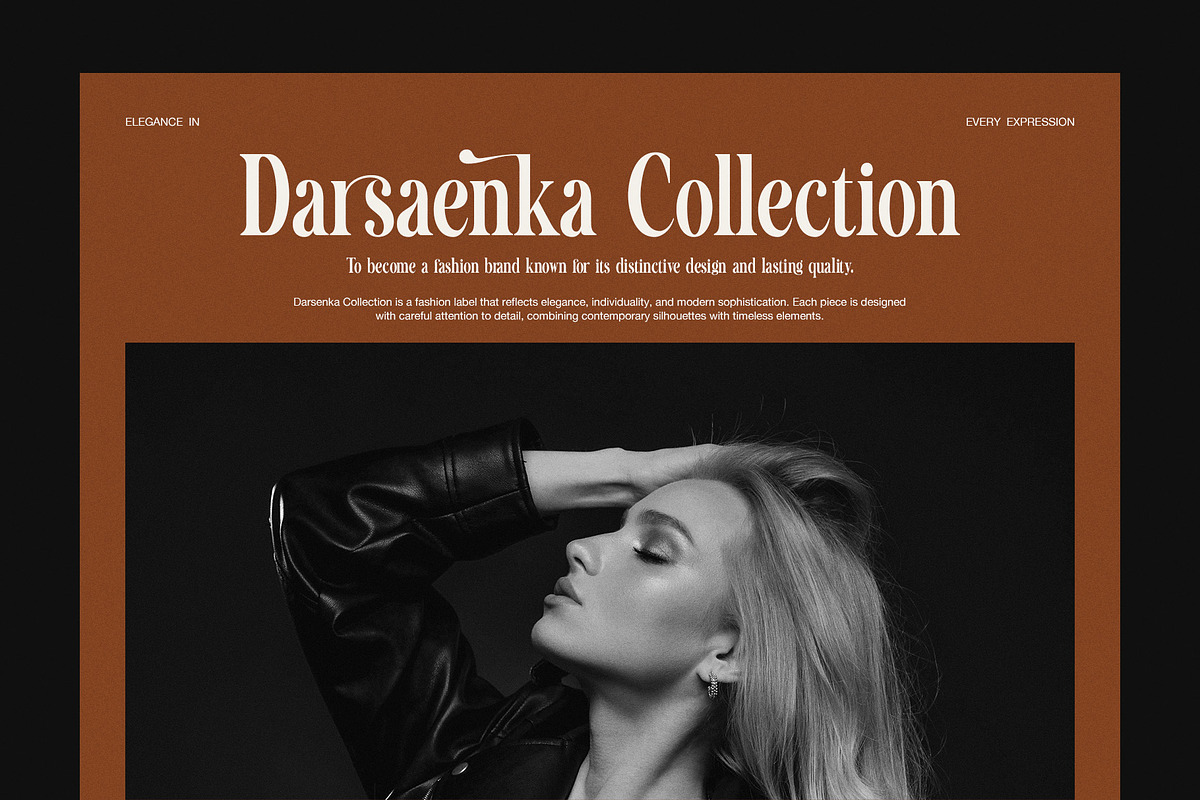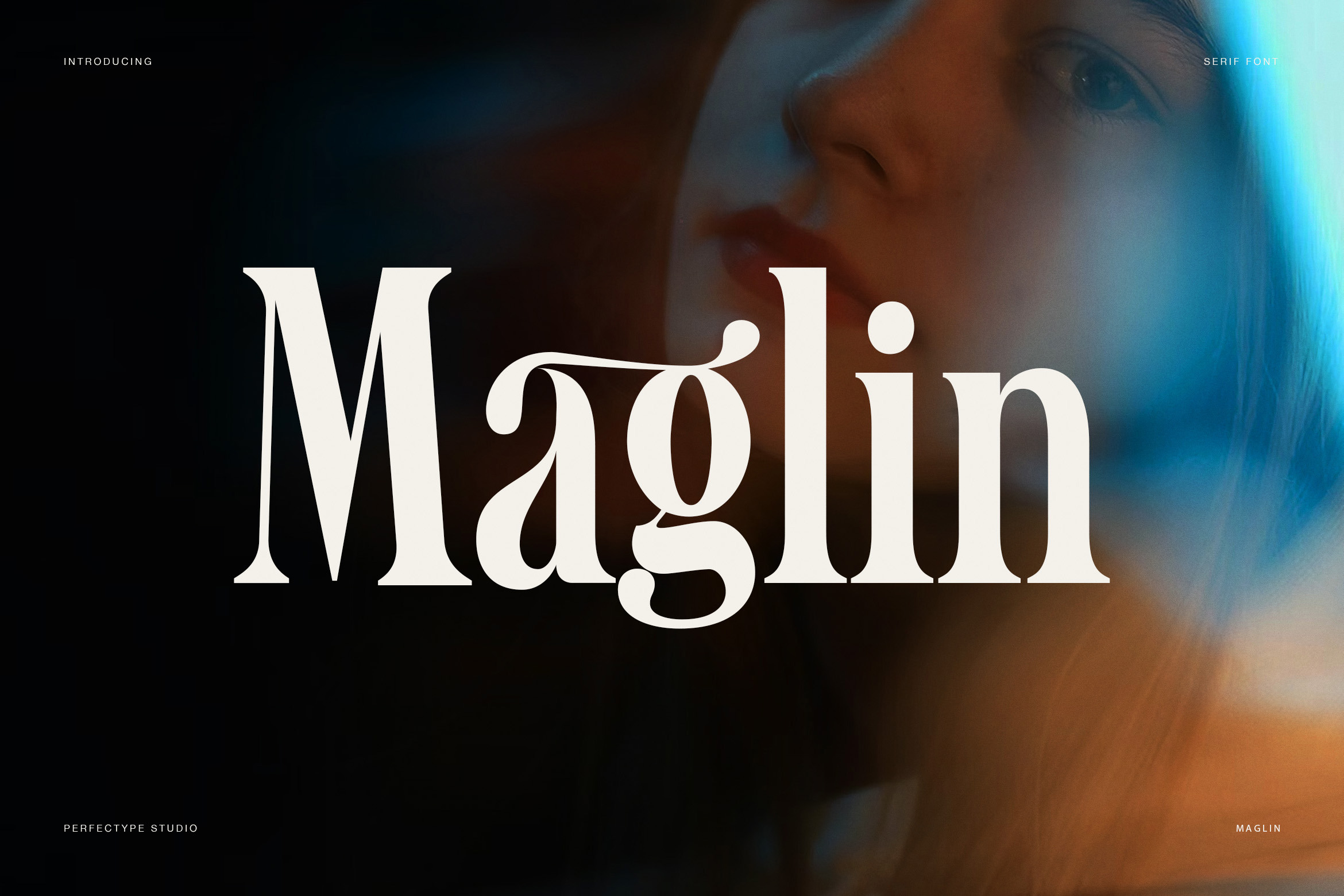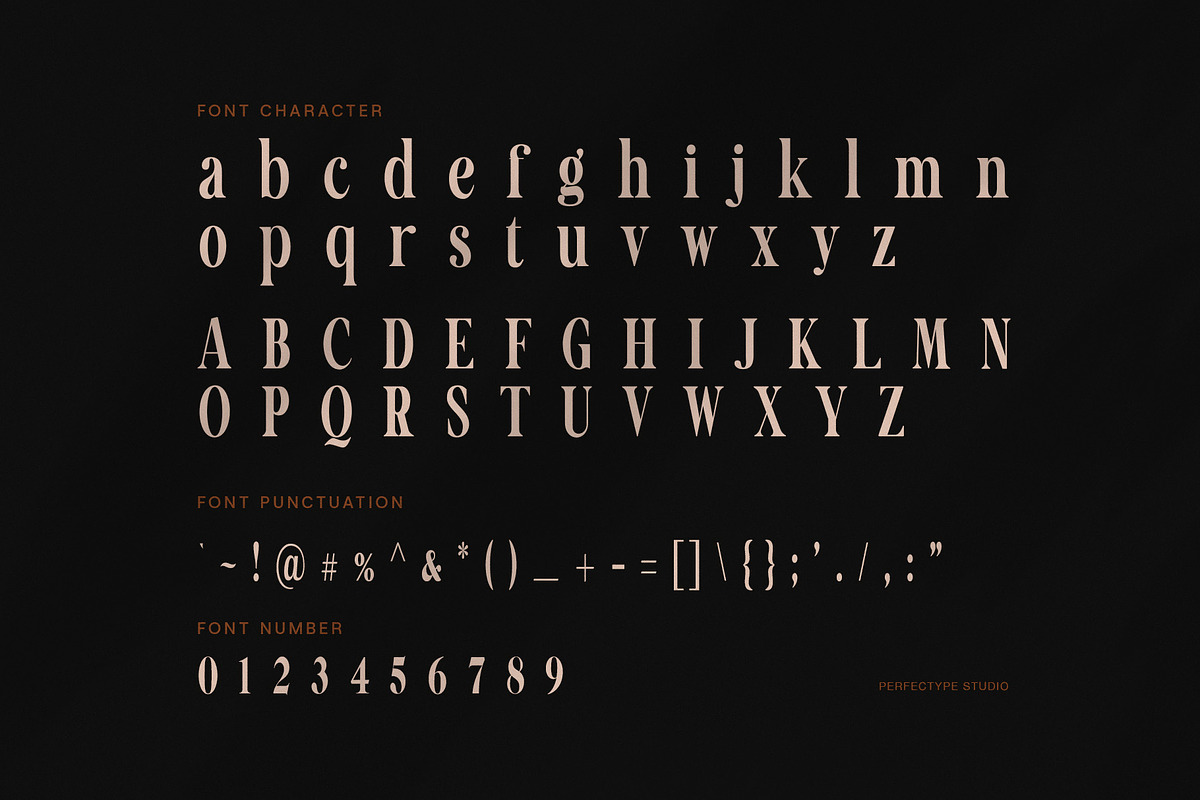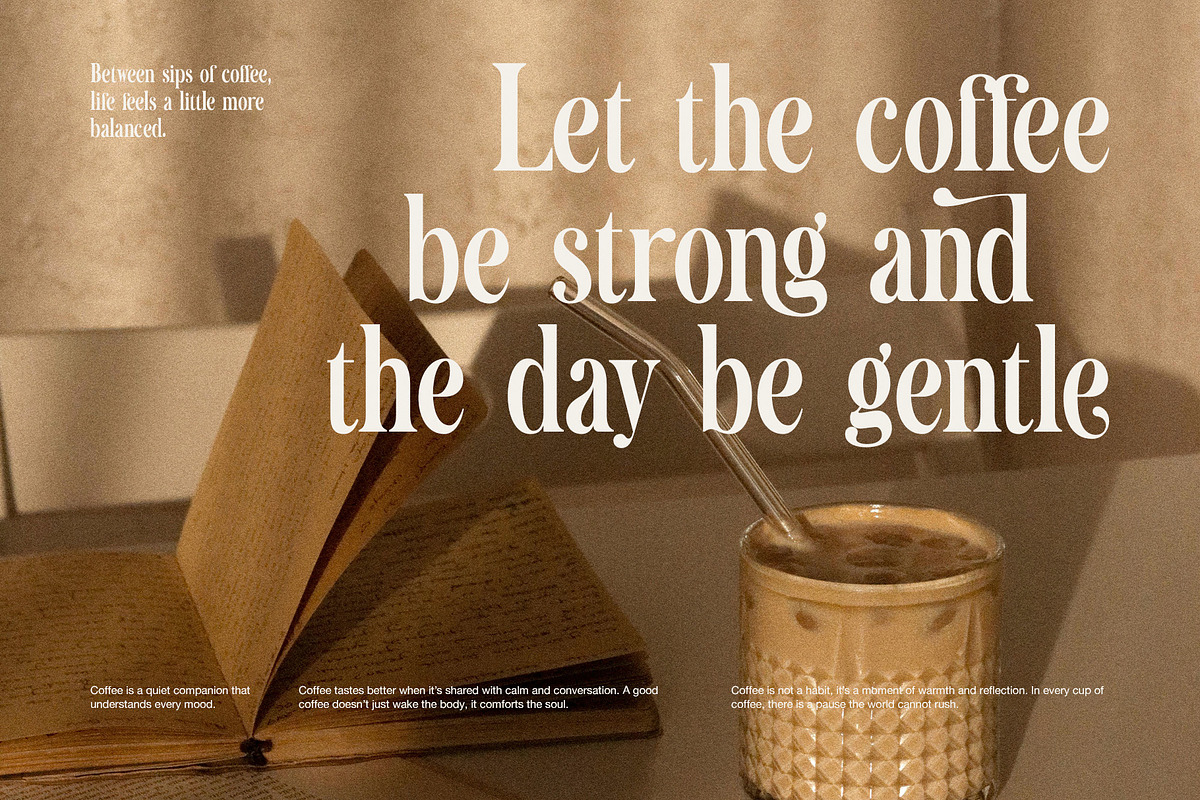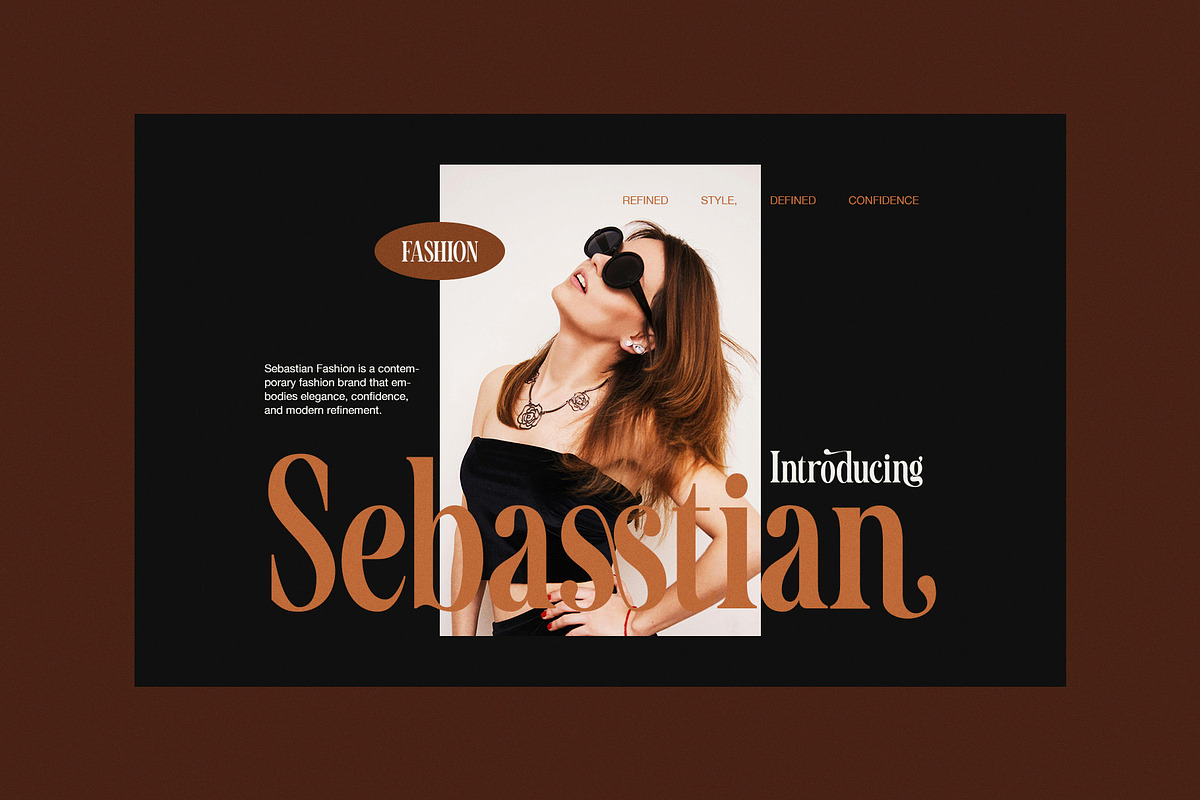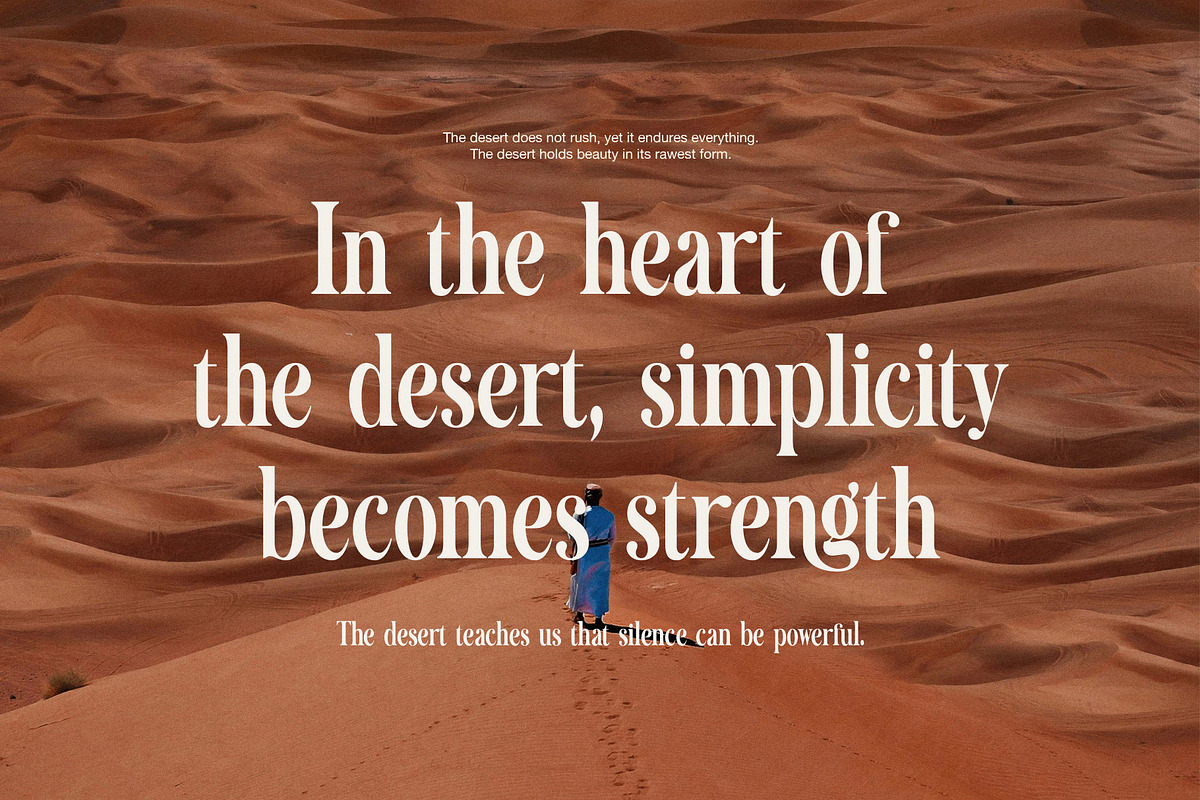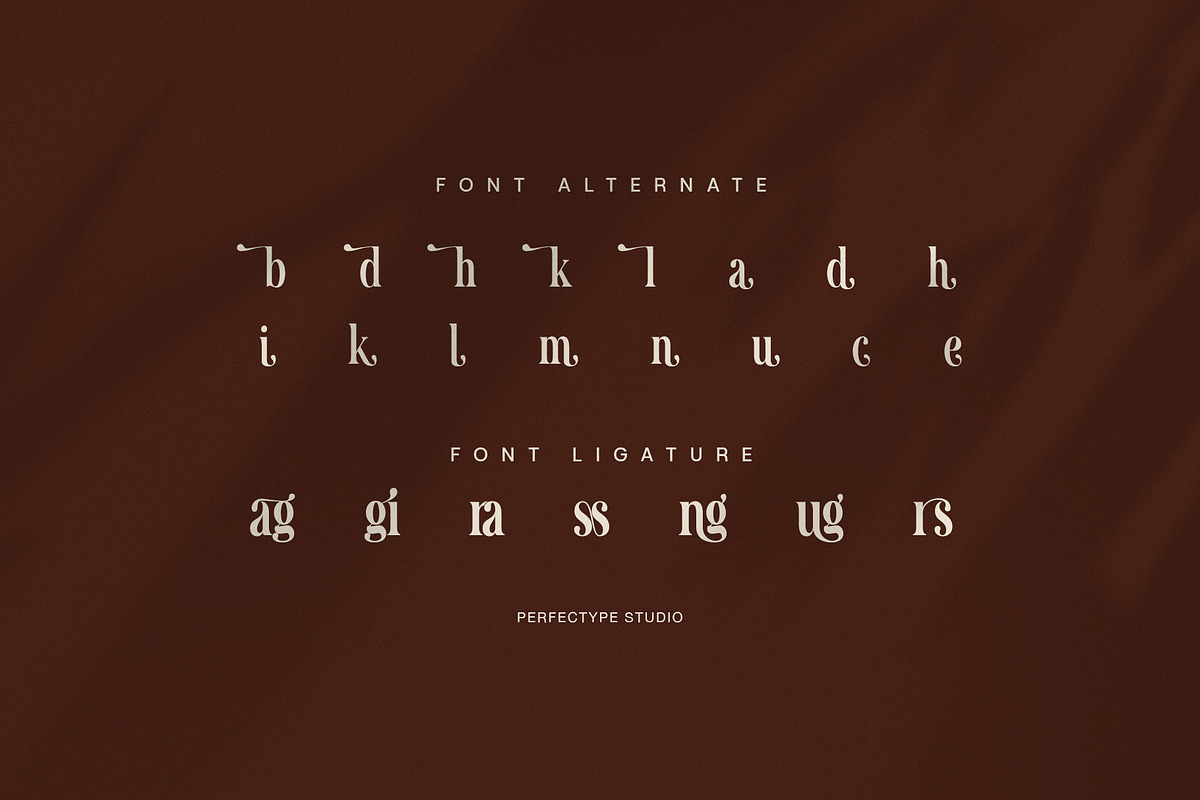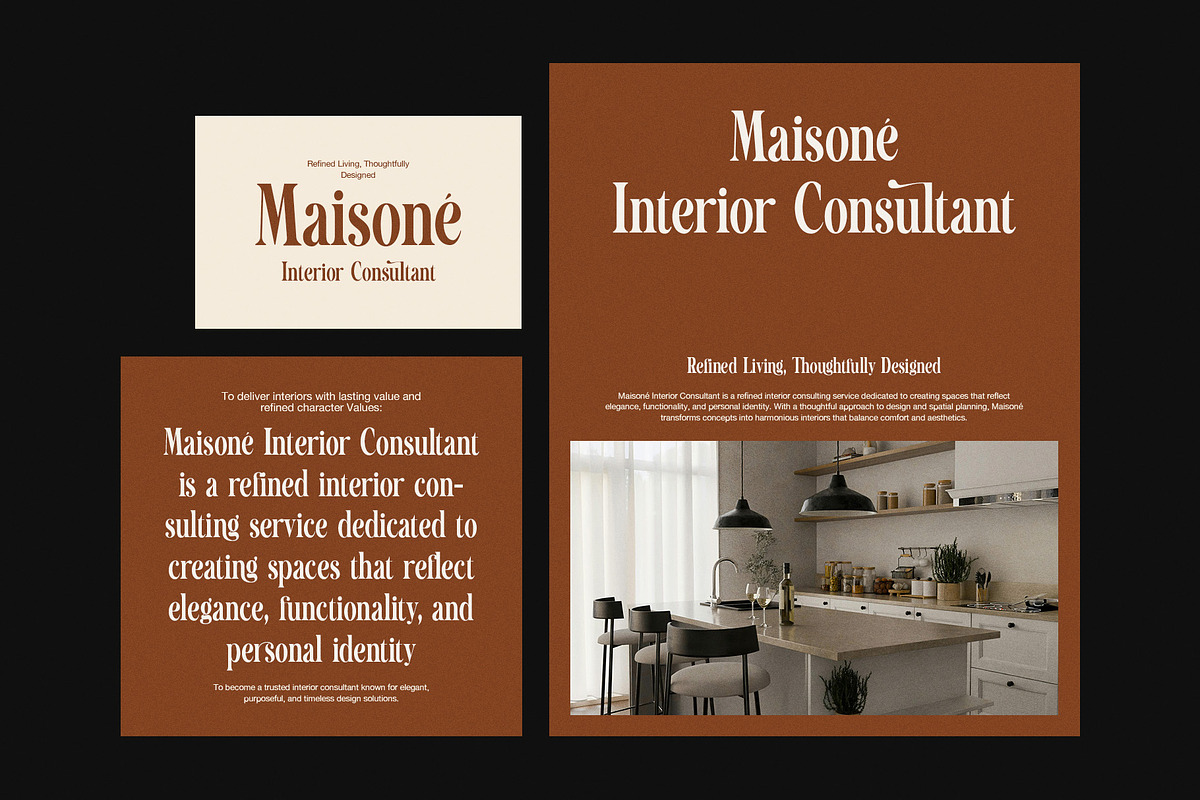
Maglin Elegant Serif Font
Elegant Serif Font for Lifestyle, Fashion, and Interior Design
Maglin is an elegant serif font designed to express warmth, balance, and refined simplicity. Inspired by modern editorials and calm visual storytelling, Maglin blends classic serif structure with smooth curves and gentle contrast. As a result, it creates typography that feels tasteful, relaxed, and quietly confident.
Moreover, Maglin features soft letterforms that flow naturally across words and sentences. Because of this smooth rhythm, headlines feel inviting rather than rigid. At the same time, the font remains clear and readable, even when used in longer paragraphs. Therefore, designers can apply Maglin to both display text and supporting content with ease.
In addition, Maglin includes stylish alternates and elegant ligatures that enhance visual character. These subtle details allow designers to create unique wordmarks, expressive headlines, and refined branding systems. Furthermore, the uppercase letters feel composed and elegant, while the lowercase characters maintain a friendly and organic tone.
Maglin works especially well for lifestyle-focused projects. For example, it suits fashion branding, interior consultants, furniture studios, cafés, coffee packaging, and inspirational quotes. It also performs beautifully in editorial layouts, magazines, lookbooks, and premium social media content. Because the contrast stays soft, designs feel calm and timeless instead of loud or overpowering.
Why designers choose Maglin
Maglin helps brands communicate elegance with warmth and clarity. It supports storytelling while keeping a clean and modern appearance.
Key features and benefits:
Elegant serif style with soft curves
Warm contrast for relaxed layouts
Refined ligatures for natural flow
Stylish alternates for custom design
Balanced uppercase for branding
Friendly lowercase for readability
Complete numerals and punctuation
Suitable for print and digital use
Overall, Maglin is an elegant serif font that combines modern calm with timeless beauty. It allows designers to create visuals that feel thoughtful, inviting, and emotionally rich.